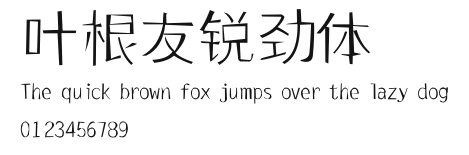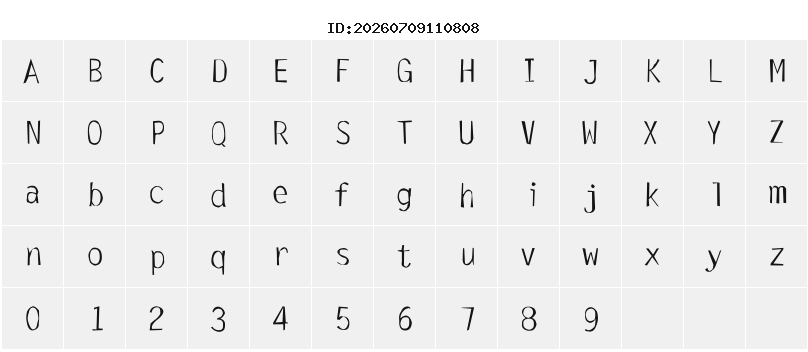
叶根友锐劲体 Preview
About 叶根友锐劲体.ttf
叶根友锐劲体.ttf is a modern, elegant sans-serif font designed for ultimate readability and visual harmony. Perfect for branding, headlines, web design, and print materials.